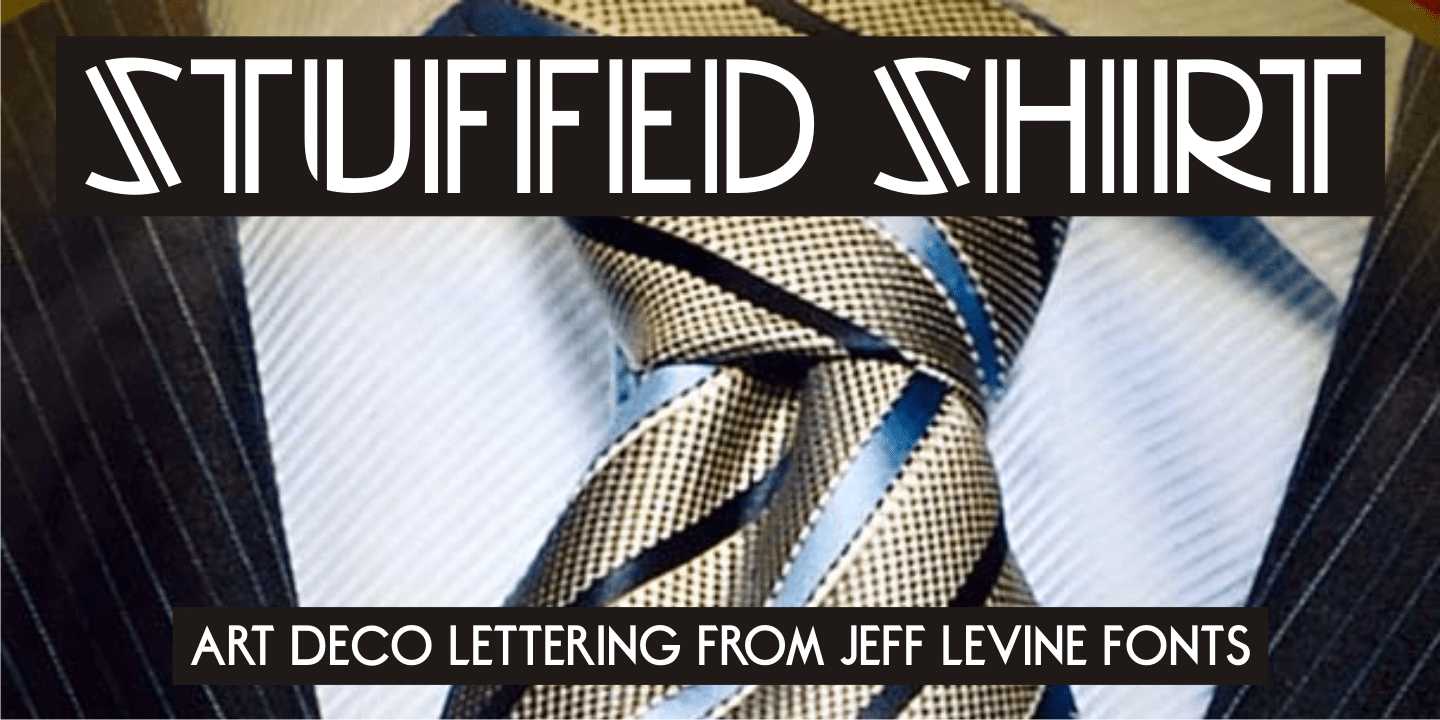
Stuffed Shirt
Stuffed Shirt JNL acquires its name from a term popularized during the years when the Art Deco period flourished. The Great Depression further widened the gap between the 'haves' and the 'have nots'. Occasionally, some of those that 'had' (and some who pretended they did) came off as standoffish, egotistical and pompously arrogant.
Such individuals were referred to as a "stuffed shirt"; a blowhard who thought he was better than others.
In this case, Stuffed Shirt JNL is no more than a dual-line adaptation of Playwright JNL, itself an interpretation of the classic Broadway type design in a way that emulates the hand lettering of old-time sign painters.